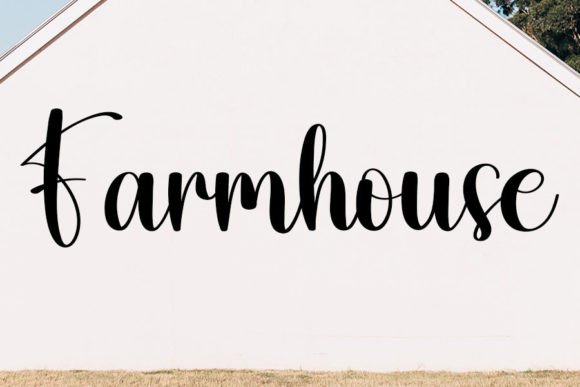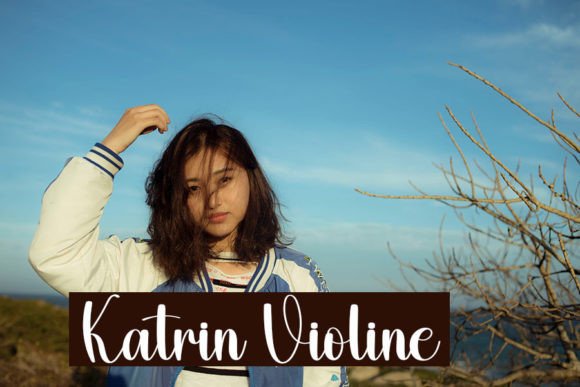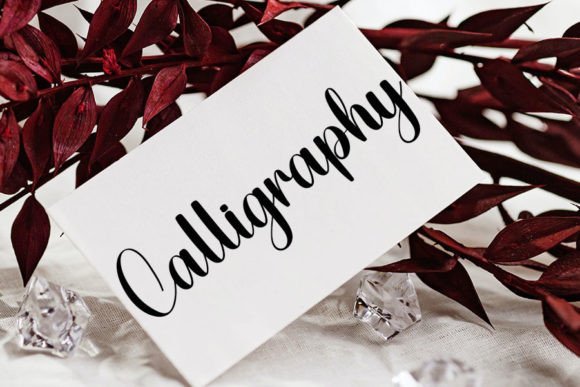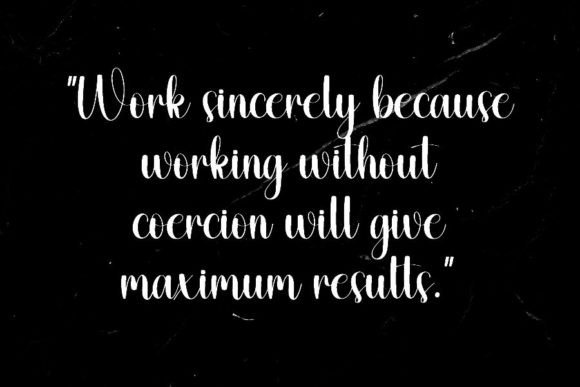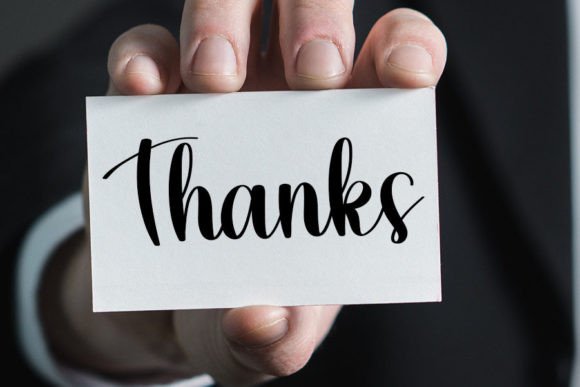
Discover the Charm of Ghosting Font: A Simple yet Versatile Handwritten Font
Are you tired of using the same old fonts in your designs? Look no further than Ghosting Font, a beautiful and simple handwritten font that’s perfect for adding a touch of natural elegance to your projects. In this article, we’ll dive into the world of Ghosting Font and explore its many uses, from greeting cards to headlines, and why it’s a must-have for designers and crafters alike.
What is Ghosting Font?
Ghosting Font is a carefully crafted handwritten font that’s designed to bring a sense of simplicity and authenticity to your designs. Its unique, flowing script is reminiscent of handwritten notes and letters, making it perfect for creating personal and engaging content. Whether you’re working on a greeting card, a blog post, or a social media graphic, Ghosting Font is sure to add a touch of warmth and personality to your project.
The Versatility of Ghosting Font
One of the best things about Ghosting Font is its incredible versatility. This font can be used in a wide range of applications, from:
- Greeting cards and invitations: Add a personal touch to your cards and invitations with Ghosting Font’s charming handwritten script.
- Headlines and titles: Use Ghosting Font to create eye-catching headlines and titles that are sure to grab attention.
- Blog posts and articles: Add a touch of personality to your written content with Ghosting Font’s natural and flowing script.
- Social media graphics: Use Ghosting Font to create engaging and shareable social media graphics that stand out from the crowd.
- Branding and packaging: Ghosting Font is also perfect for creating custom branding and packaging that reflects your unique style and personality.
Why Choose Ghosting Font?
So why choose Ghosting Font over other fonts? Here are just a few reasons why designers and crafters love this font:
- Simple and natural feel: Ghosting Font has a simple and natural feel that’s perfect for creating authentic and engaging content.
- Easy to read: The font’s clear and flowing script makes it easy to read, even at small sizes.
- Highly versatile: Ghosting Font can be used in a wide range of applications, from greeting cards to headlines.
- Unique and charming: Ghosting Font has a unique and charming personality that’s sure to set your designs apart from the crowd.
Tips for Using Ghosting Font
Here are a few tips for getting the most out of Ghosting Font:
- Use it with images: Ghosting Font pairs perfectly with images, especially those with a natural or rustic feel.
- Experiment with colors: Try pairing Ghosting Font with different colors and textures to add depth and interest to your designs.
- Mix it with other fonts: Ghosting Font can be paired with other fonts to create a unique and eye-catching look.